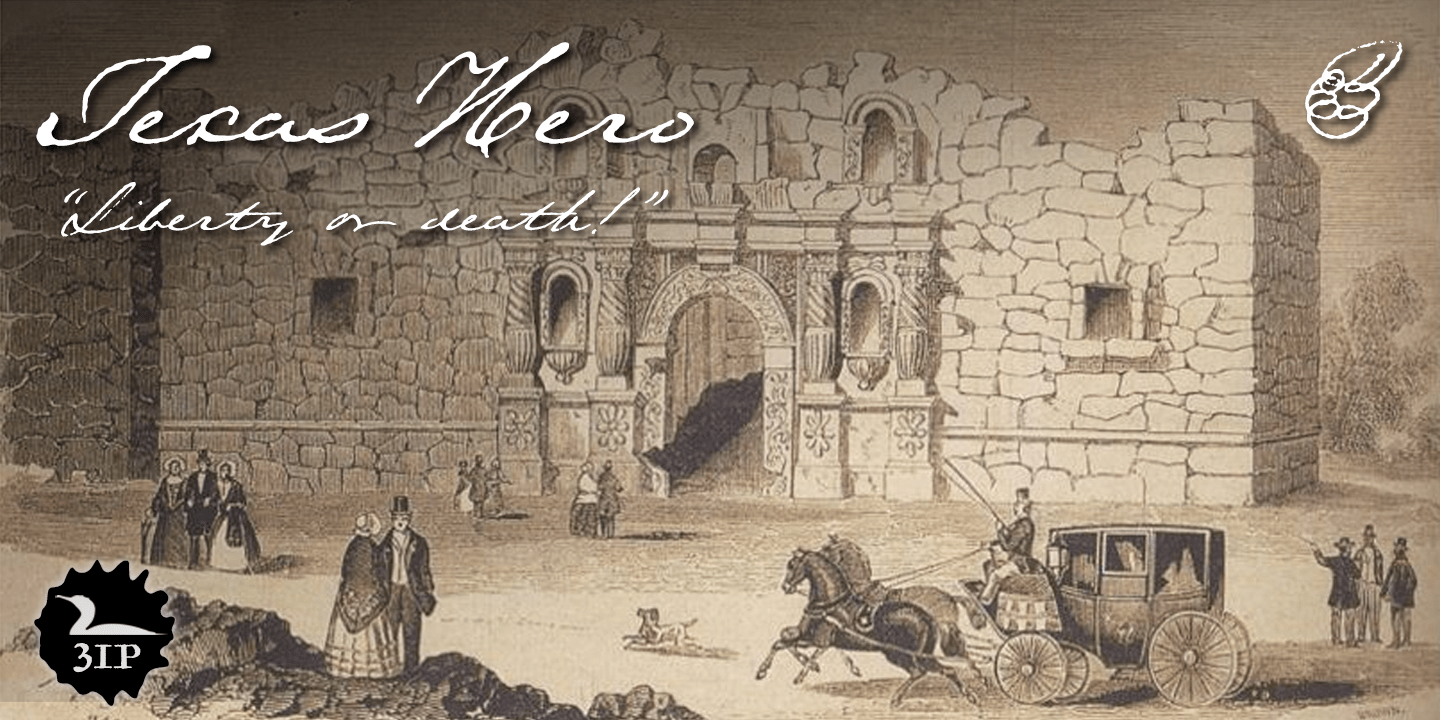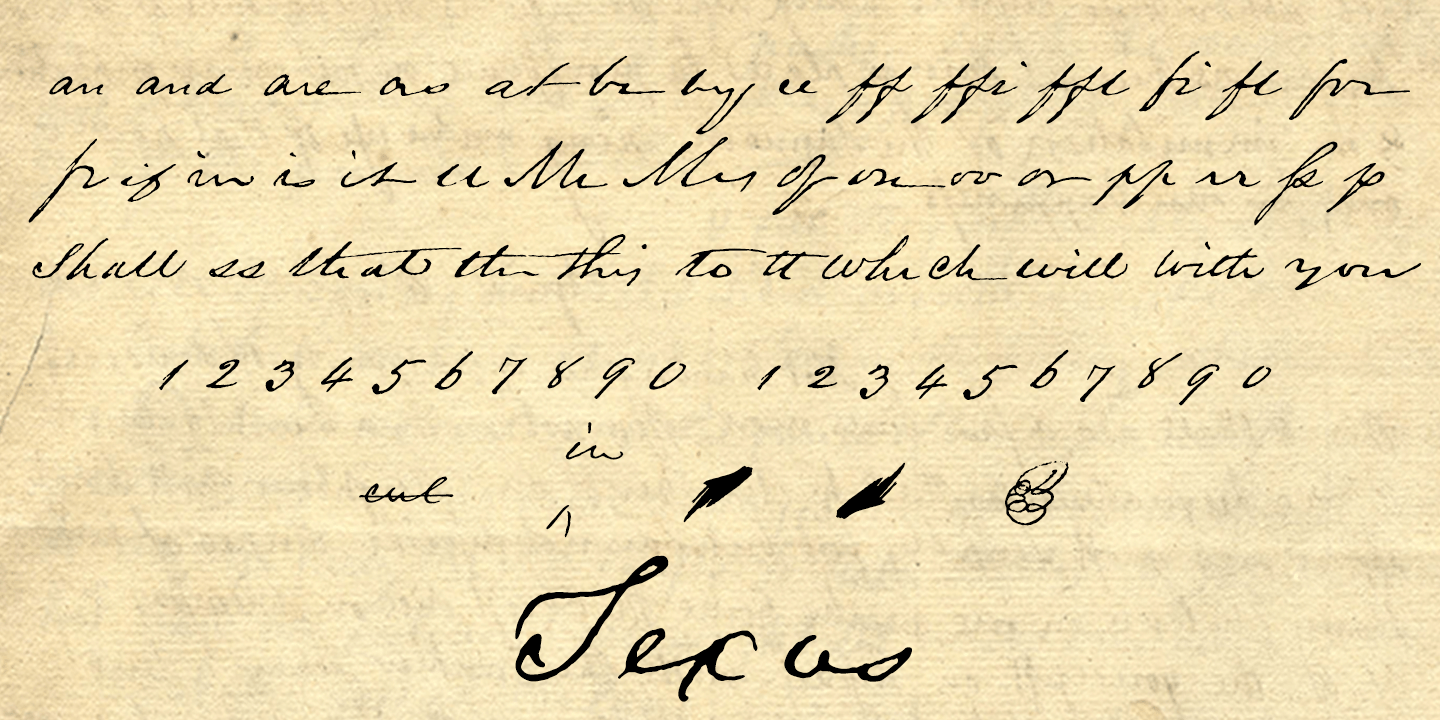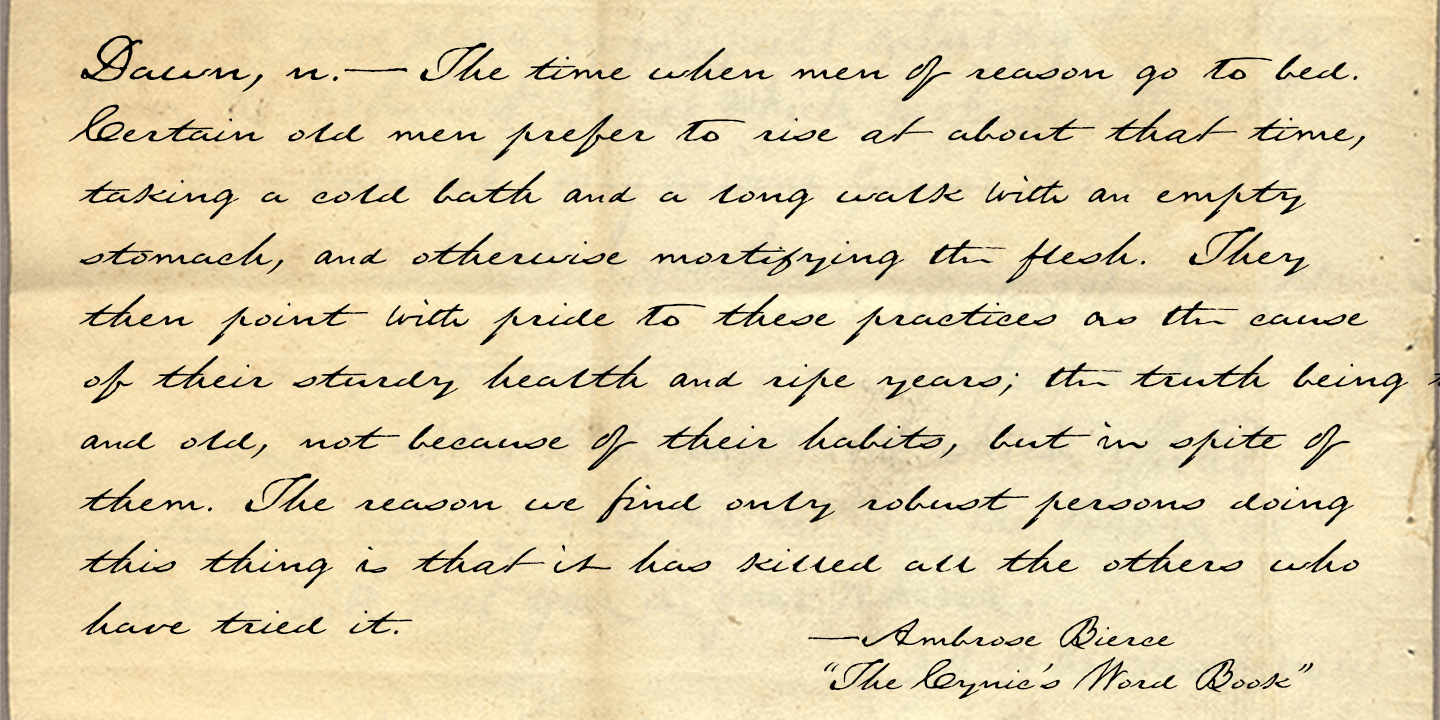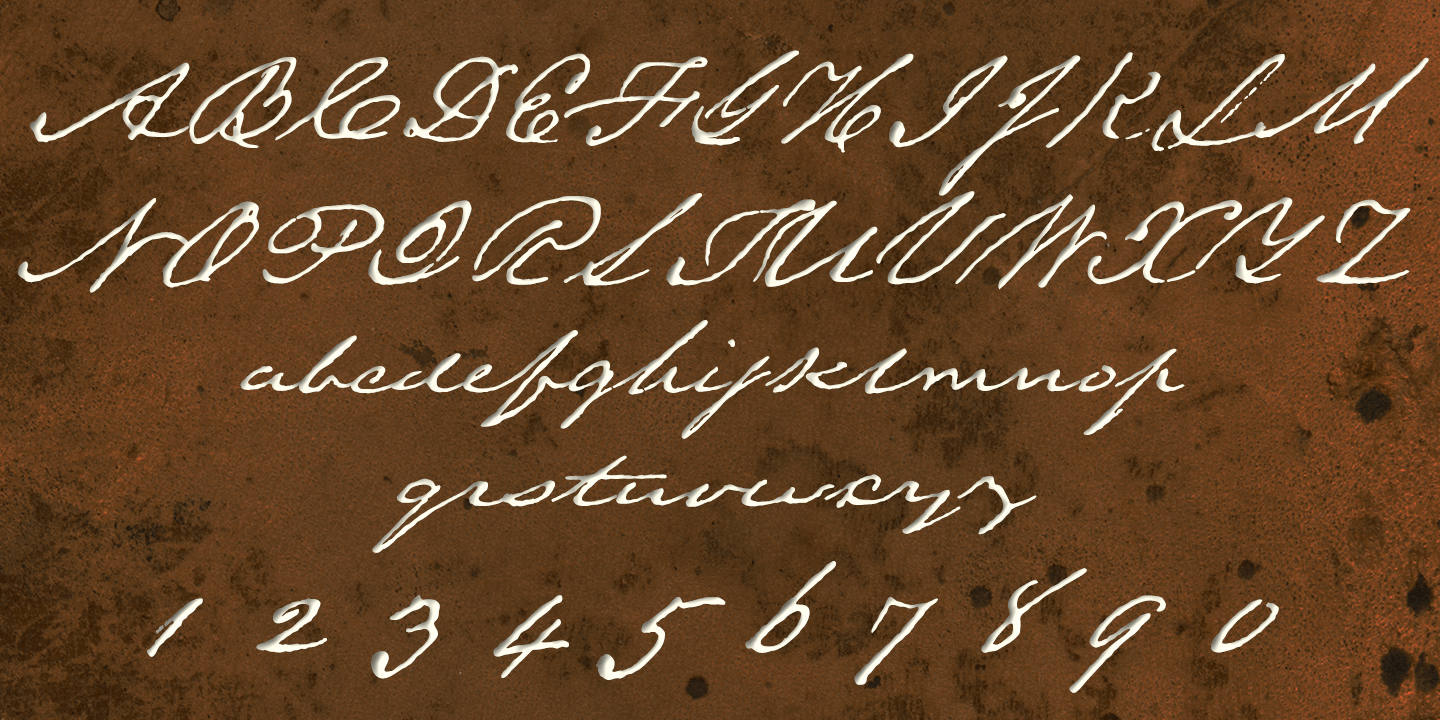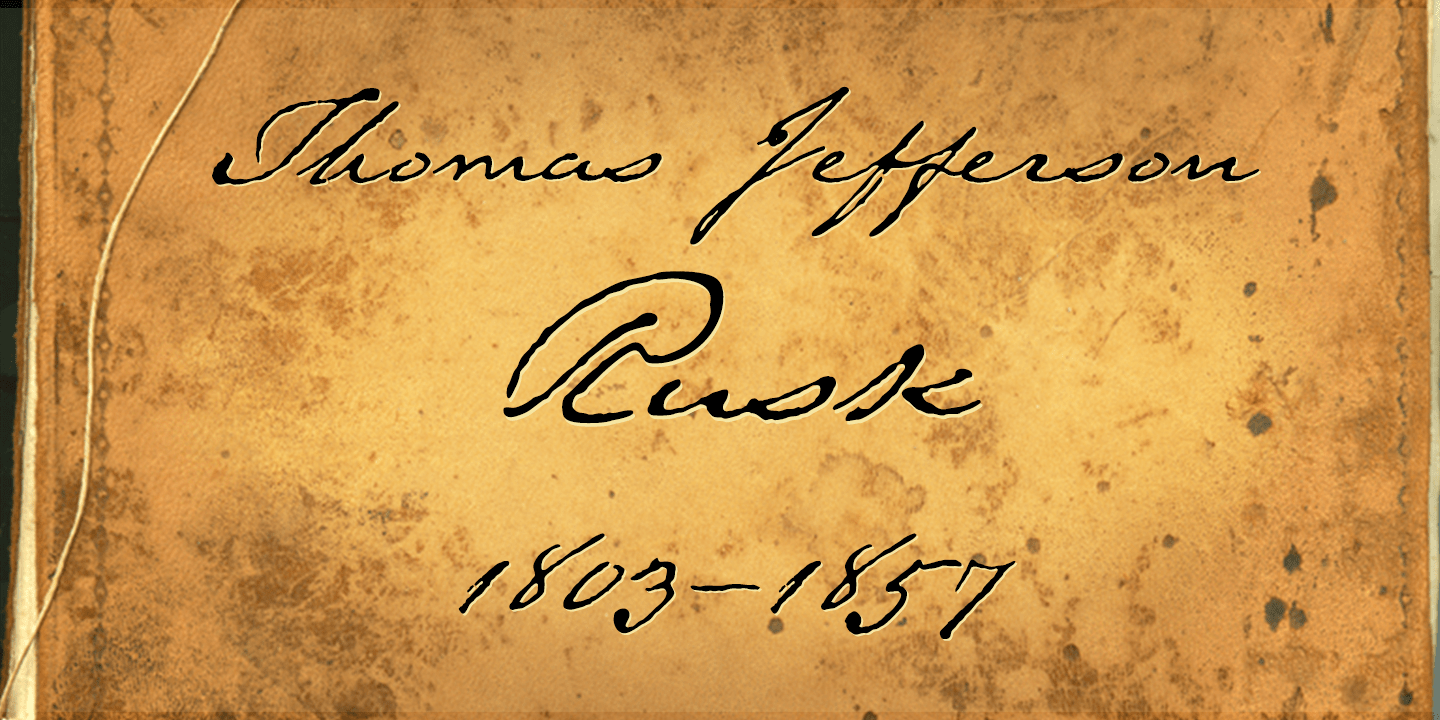
Texas Hero
Buy NowIt occurred to me years ago that the graphic arts community might find useful a digital typeface that mimicked the classic look of nineteenth-century handwriting.
Conveniently, my mother then still volunteered at the Center for American History at the University of Texas at Austin, my hometown. She made copies of the letters of a few famous Texans -- Houston, Austin, Travis, Burnet, Rusk. Thomas J. Rusk's penmanship caught my eye as the most accessible of the bunch. I hadn't realized at the time what a challenge it'd be to render a realistic-looking script face, but the result has, in fact, filled a niche.